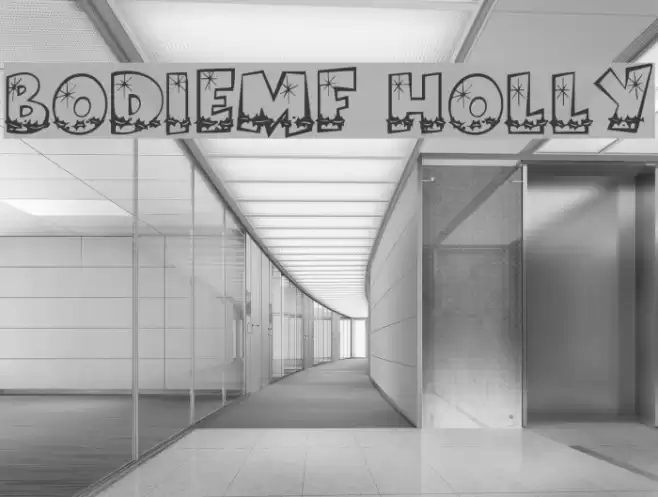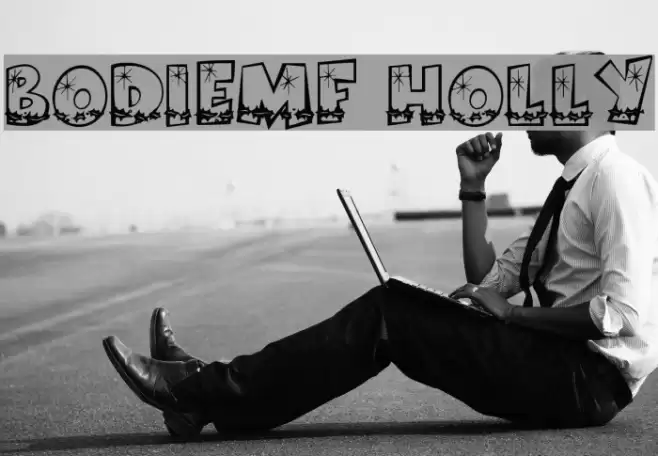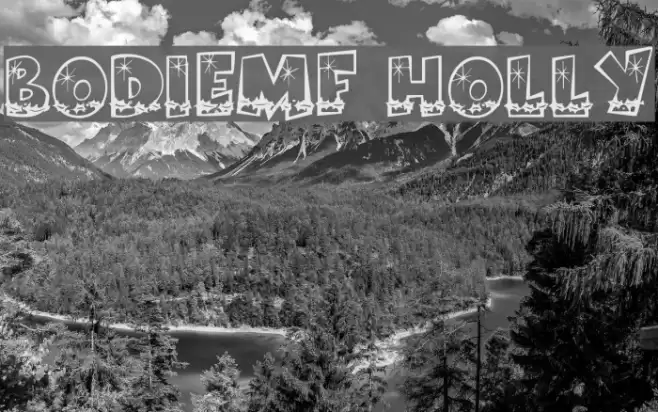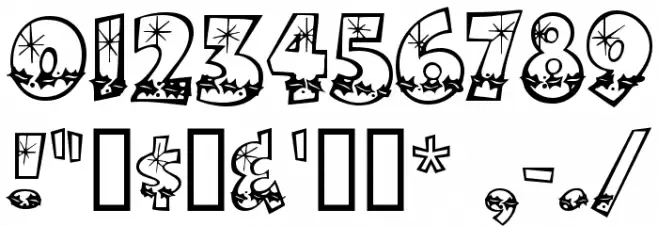
BodieMF Holly Font
BodieMF Holly Description
This playful and festive font features bold, blocky letters adorned with holly leaves and berries, giving it a distinctly holiday-themed appearance. The characters are outlined with a thick black border, enhancing their visibility and adding a touch of whimsy. The interior of each letter is filled with decorative elements that resemble snowflakes and holly, creating a lively and cheerful aesthetic. This font is perfect for capturing the spirit of the holiday season, making it ideal for festive designs and projects. Its unique style is both eye-catching and fun, making it suitable for a variety of creative applications.
A festive, holiday-themed font with bold letters decorated with holly and snowflakes from Uncategorized fonts.
- Proposed Projects: Ideal for holiday cards, festive banners, seasonal advertisements, and Christmas-themed designs.
- Overall Style: Festive